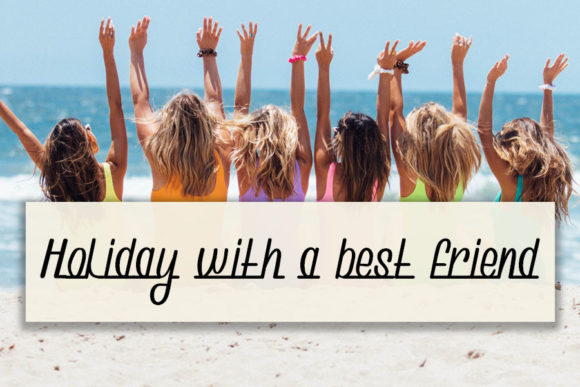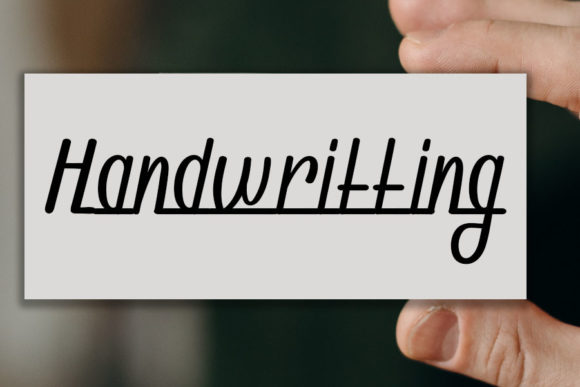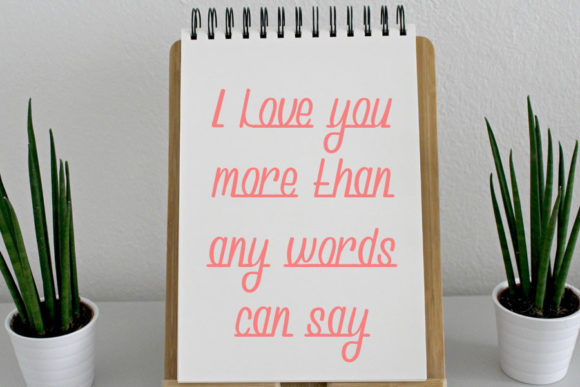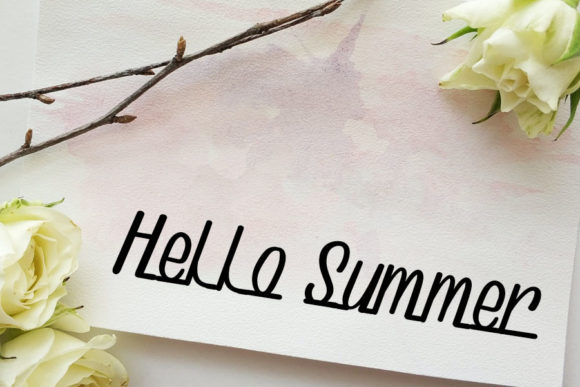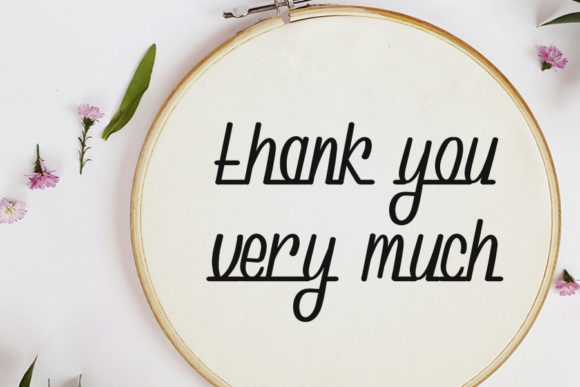
Introducing Back School Font: The Ultimate Handwritten Font for Creative Designs
Are you tired of using the same old fonts in your designs? Look no further! Back School Font is a cute and trendy handwritten font that is sure to take your creative projects to the next level. Its natural and unique style makes it incredibly fitting to a large pool of designs, and the only limit is your imagination!
What is Back School Font?
Back School Font is a modern handwritten font that is perfect for designers and crafters who want to add a personal touch to their work. Its unique and natural style is reminiscent of handwritten notes and makes it perfect for a wide range of designs, from invitations and greeting cards to posters and social media graphics.
Key Features of Back School Font
- Cute and Trendy: Back School Font is a modern and stylish font that is sure to make your designs stand out.
- Handwritten Style: The font has a natural and unique handwritten style that gives it a personal touch.
- Versatile: Back School Font is incredibly versatile and can be used in a wide range of designs, from formal to informal.
- Easy to Read: The font is clear and easy to read, making it perfect for designs that require a lot of text.
Uses of Back School Font
Back School Font is perfect for a wide range of designs, including:
- Invitations: Use Back School Font to create beautiful and unique invitations for weddings, birthday parties, and other special occasions.
- Greeting Cards: Add a personal touch to your greeting cards with Back School Font.
- Posters: Use Back School Font to create eye-catching posters for events, promotions, and more.
- Social Media Graphics: Add a personal touch to your social media graphics with Back School Font.
- Branding: Use Back School Font to create a unique and memorable brand identity.
Why Choose Back School Font?
There are many reasons why you should choose Back School Font for your designs. Here are a few:
- Unique Style: Back School Font has a unique and natural style that will make your designs stand out.
- High-Quality: The font is high-quality and is perfect for professional designs.
Tips for Using Back School Font
Here are a few tips for using Back School Font in your designs:
- Use it with Other Fonts: Back School Font looks great when paired with other fonts. Try using it with a bold font for headings and a serif font for body text.
- Experiment with Colors: Back School Font looks great in a variety of colors. Try using it with bright and bold colors to add a pop of color to your designs.
- Use it for Headings: Back School Font is perfect for headings and titles. Use it to add a personal touch to your designs.
Back School Font is a cute and trendy handwritten font that is perfect for designers and crafters who want to add a personal touch to their work. Its unique and natural style makes it incredibly fitting to a large pool of designs, and the only limit is your imagination! With its versatility, ease of use, and affordability, Back School Font is a great choice for anyone looking to take their designs to the next level.